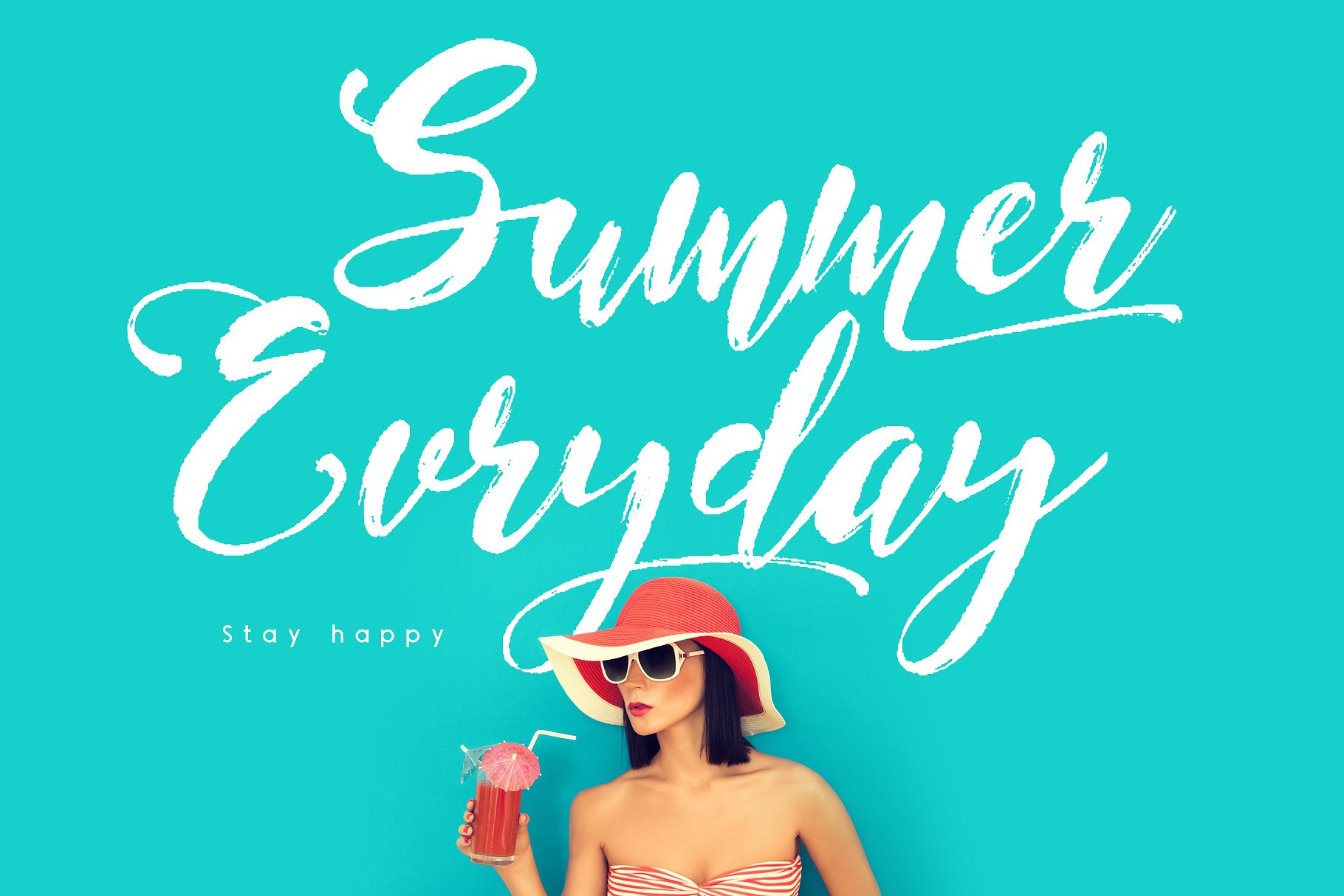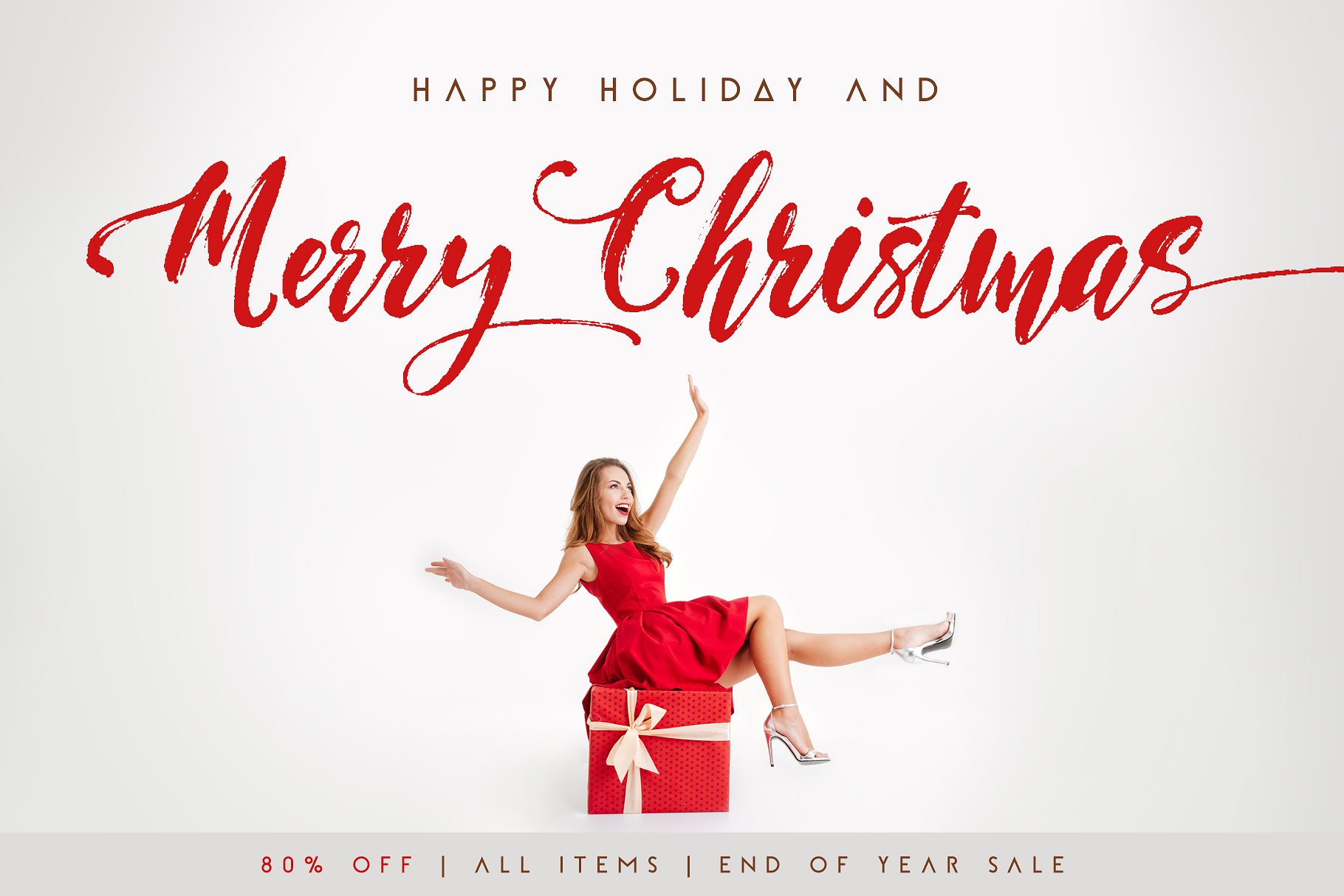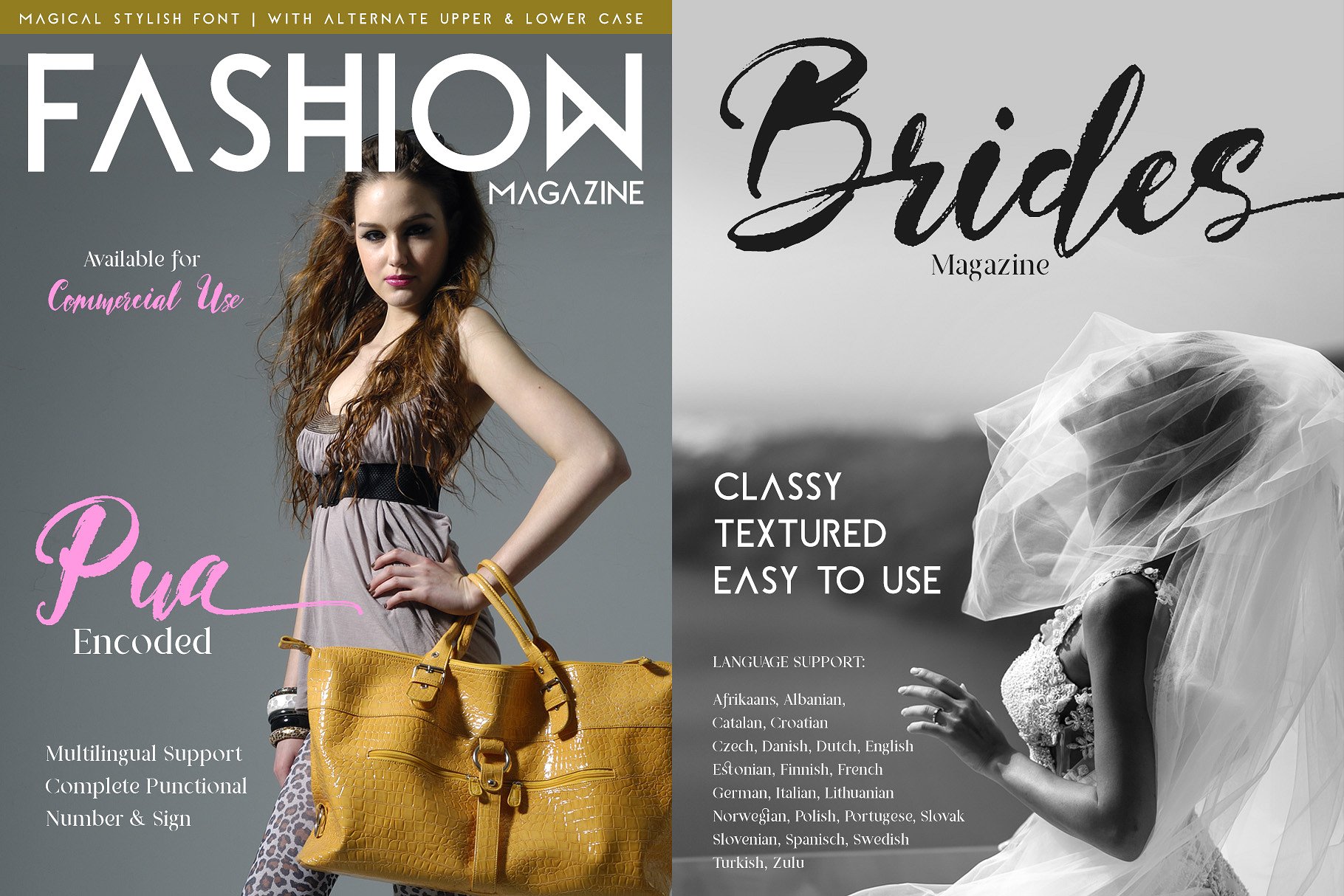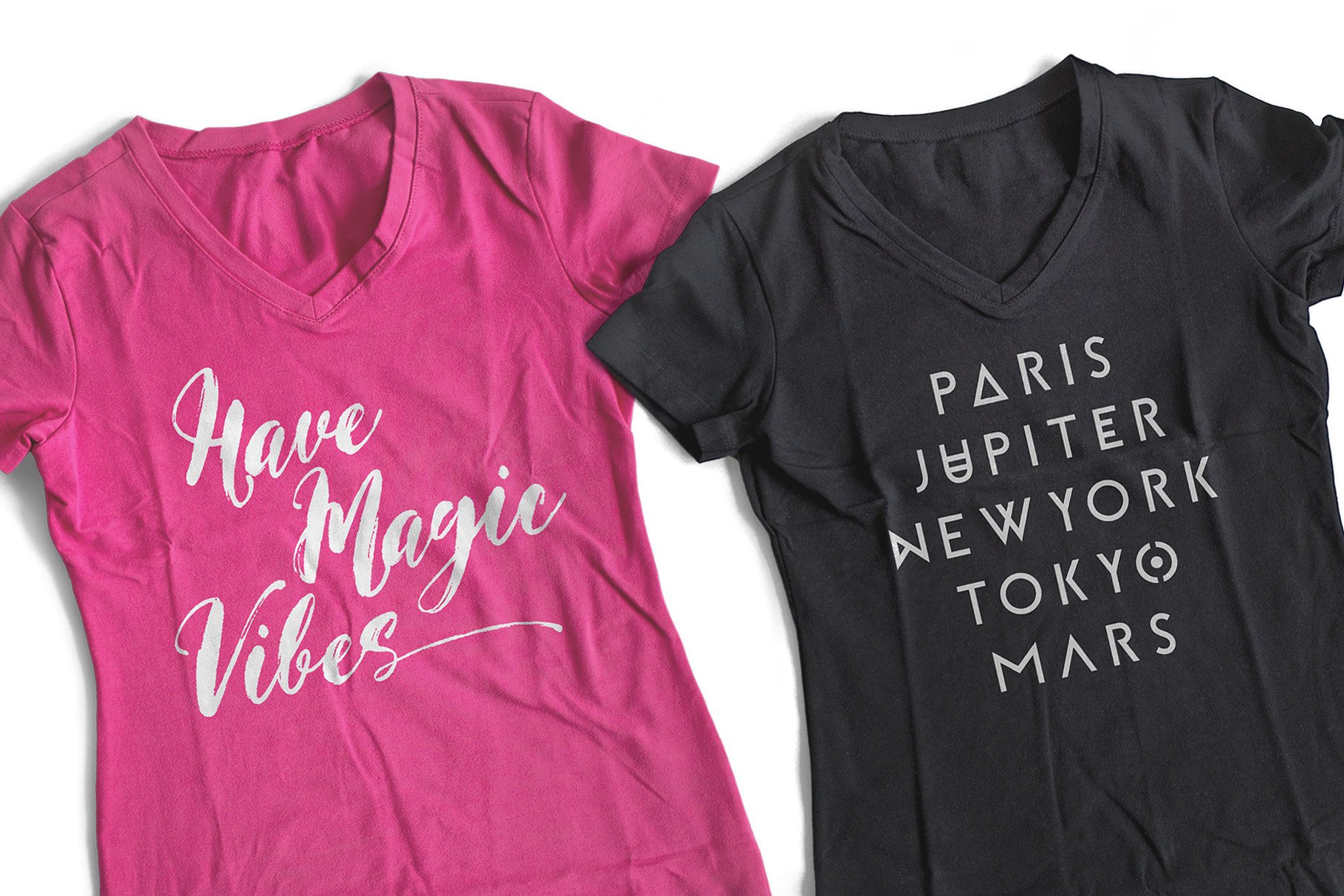
Magical Stylish – Font Duo
I am happy to present you  a geometric sans serif & handwritten brush font. Introducing Magical Stylish Font. MagicalStylish – a geometric font and wet brush font. It really easy to use as fast as you blink your eyes, just type or copy and paste the text you want and abracadabraaa…. it works! It comes with an alternate set of uppercase letters, and a lowercase letters to ensure you get the look you are after.